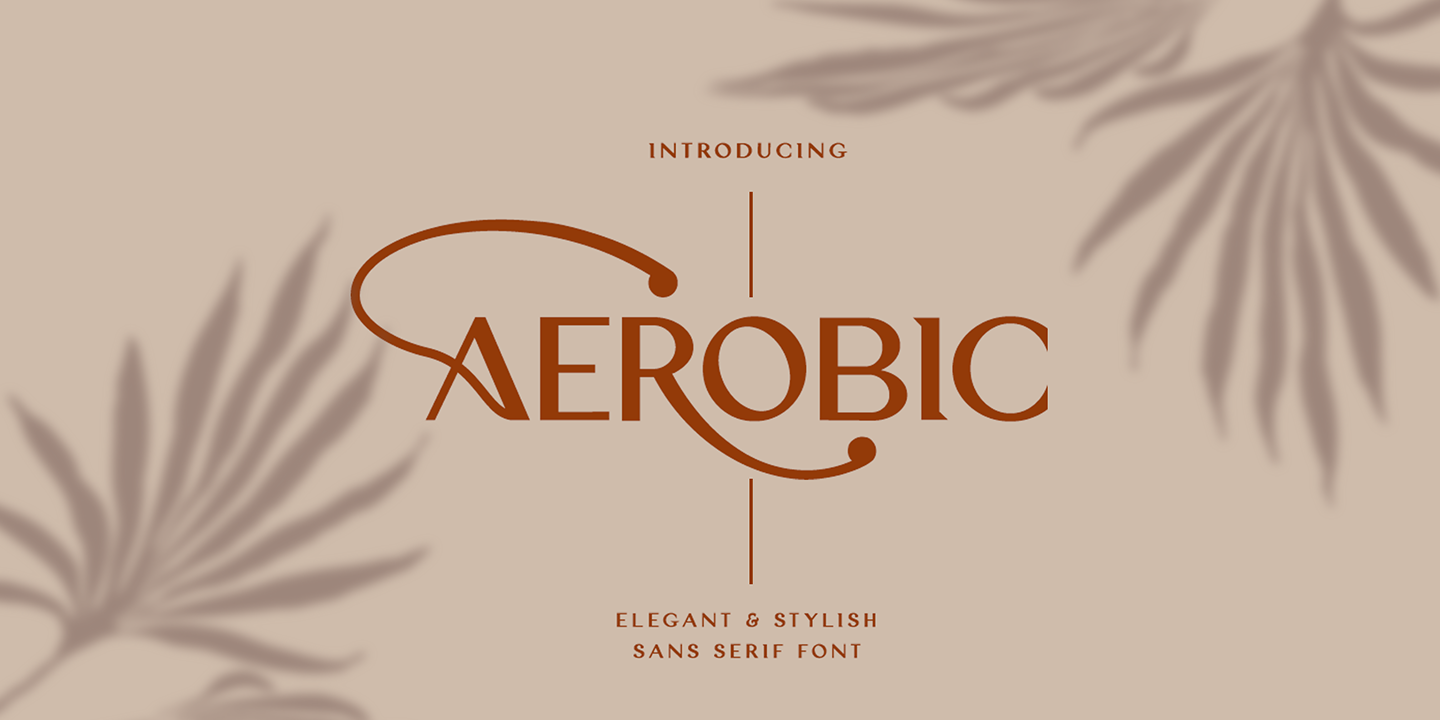
The Aerobic Font is a dynamic and energetic display typeface, often characterized by its bold, assertive forms and a distinct sense of movement and modern athleticism. Imagine its commanding characters dominating posters for fitness events, adding a powerful edge to sports team branding, or creating impactful titles for workout apps and health-related content. Its robust construction and often geometric yet fluid letterforms also make it an excellent choice for activewear labels, striking gym signage, vibrant social media campaigns promoting a healthy lifestyle, and any design where high energy, strength, and clear communication are paramount. Whether you're aiming for a powerful, athletic look or a dynamic design with an undeniable impact, Aerobic Font delivers with its unwavering character, ensuring your visuals demand attention and leave a lasting impression.
What makes Aerobic Font so exciting is its inherent ability to project vitality, strength, and a modern, active sensibility. In a visual landscape where conveying dynamism is crucial, this font stands out with its powerful visual impact and remarkable legibility, even in its more stylized forms. It's more than just a typeface; it's a design accelerant that can instantly communicate vigor, determination, and a confident, health-conscious attitude. Aerobic Font offers designers the opportunity to create visuals that are both visually assertive and remarkably clear, making it an invaluable asset for those looking to communicate a sense of power, endurance, and contemporary flair in an impactful form.
The Aerobic Font family is typically structured to offer a range of styles that amplify its bold and expressive appeal. Beyond the primary Aerobic Regular typeface, you might find companion styles such as a more impactful Aerobic Bold for even stronger emphasis, or perhaps Aerobic Condensed for tighter spaces while maintaining its strong presence. Given its display nature and focus on energy, the family may also include variations with different internal structures, outlines, or even layered versions that allow for multi-color effects, enhancing its dynamic potential. These diverse family members provide designers with the flexibility to establish a clear typographic hierarchy and maintain a consistent, high-impact, and often minimalist aesthetic across all elements of their project, from dominant headlines and logos to subtle design accents.